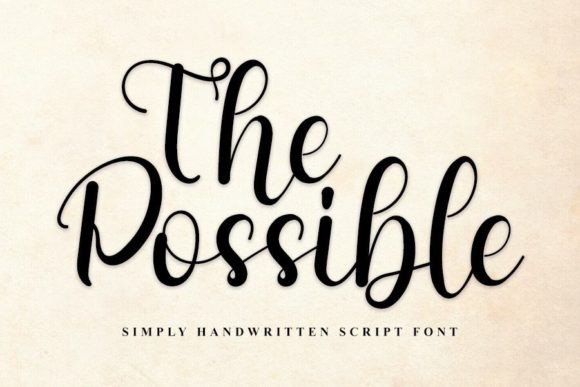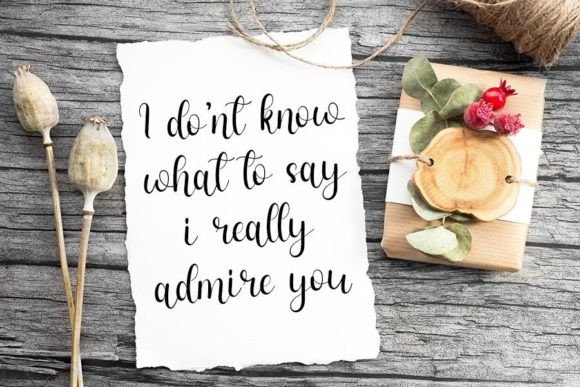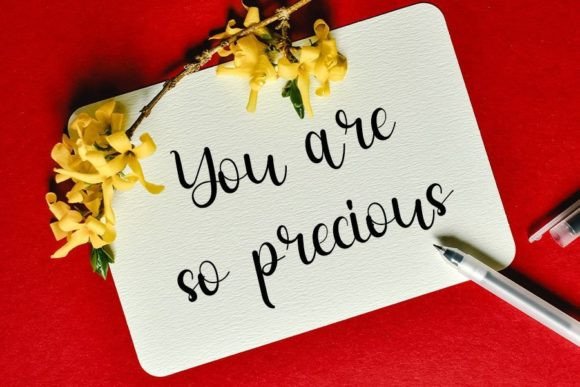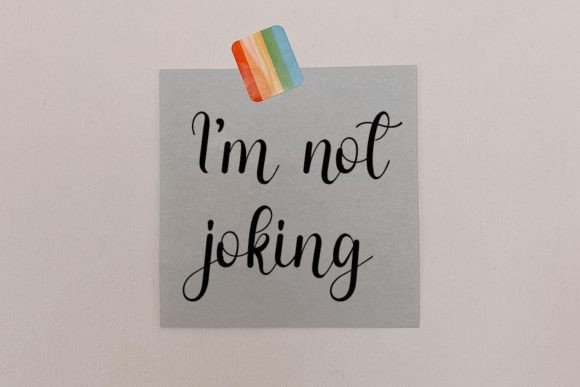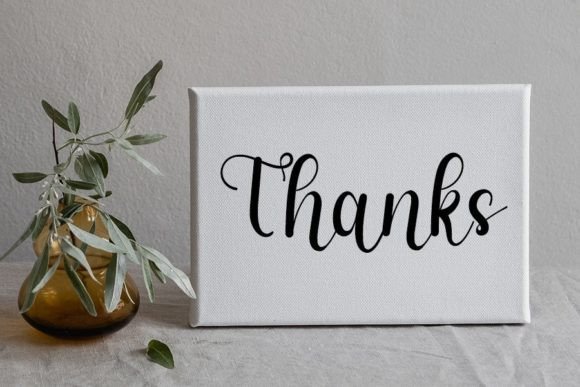
The Possible Font
About The Possible Font
The Possible stands out as a refined and beautiful handwritten font, characterized by an elegant touch that adds a sophisticated flair to your favorite projects. Immerse yourself in its distinctly neat and timeless style, and let it be the key to creating truly spectacular designs.
The neatness of The Possible makes it an excellent choice for a wide array of projects. Whether you’re working on invitations, branding, or other creative endeavors, this font offers a level of elegance that enhances the visual appeal of your designs. Its timeless style ensures that it remains relevant and impactful across various applications.
The elegant touch of The Possible sets it apart, making it a font that invites admiration. The subtle nuances and clean lines contribute to its beauty, creating a sense of balance that is visually pleasing. This font is not just a typographic tool; it’s an expression of refined aesthetics that elevates your design projects.
The versatility of The Possible is a noteworthy feature, making it suitable for both formal and informal contexts. Whether you’re crafting a stylish logo or designing a heartfelt message, this font adapts seamlessly, offering a touch of sophistication that is both distinct and captivating.
Fall in love with The Possible and its ability to transform your creative vision into spectacular designs. Its distinct and elegant style becomes a visual signature, leaving a lasting impression on your audience. Embrace the timeless beauty of The Possible and let it be the catalyst for creating designs that stand the test of time.